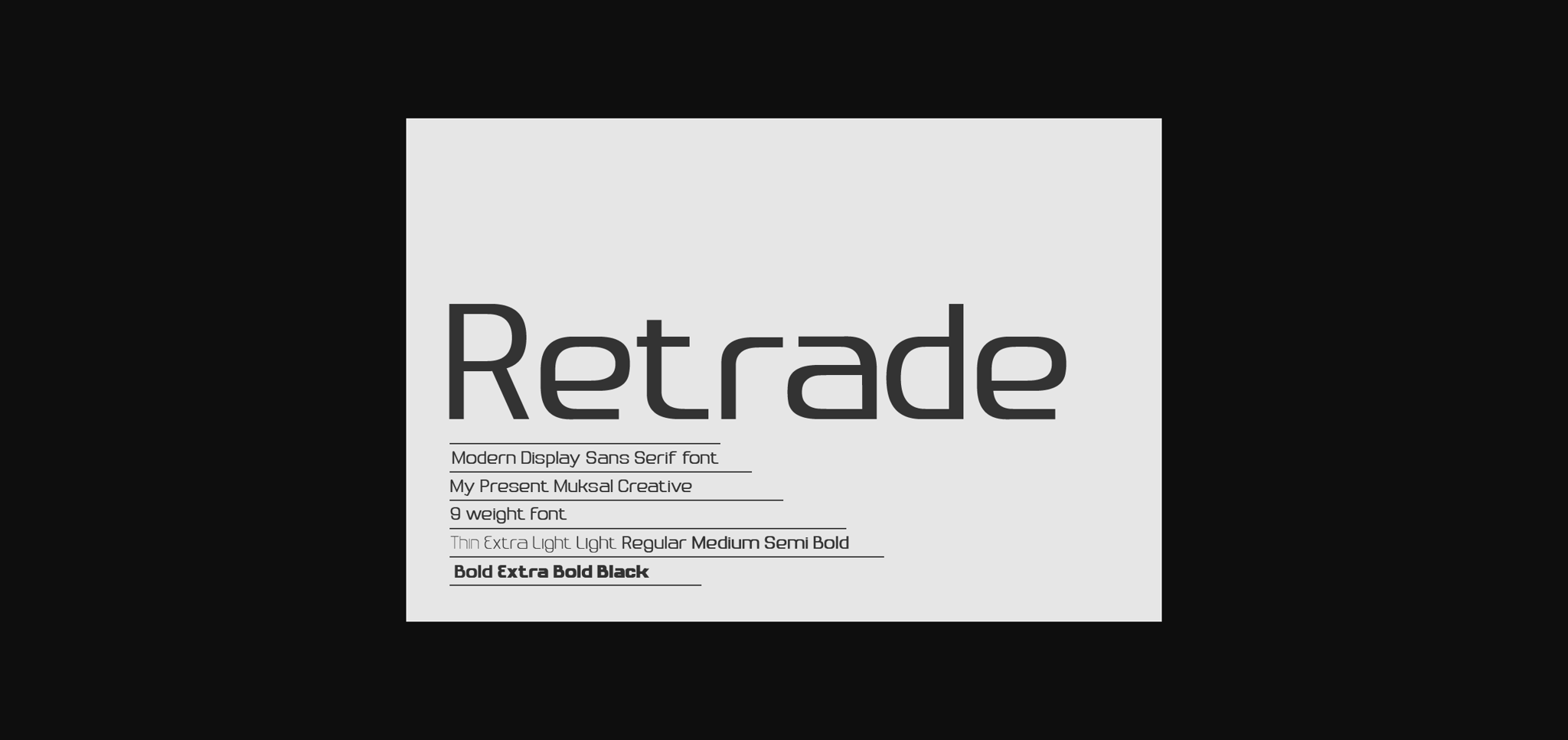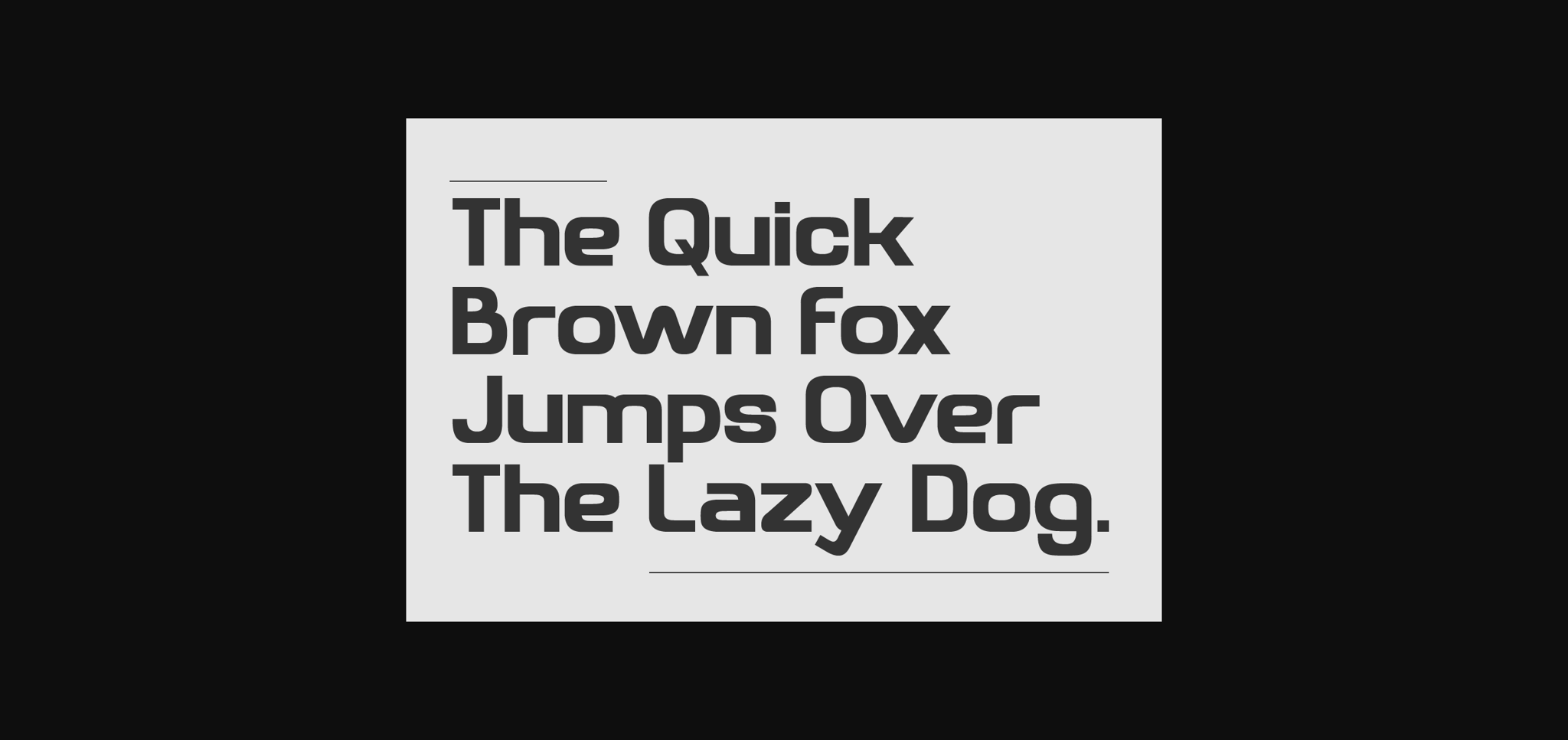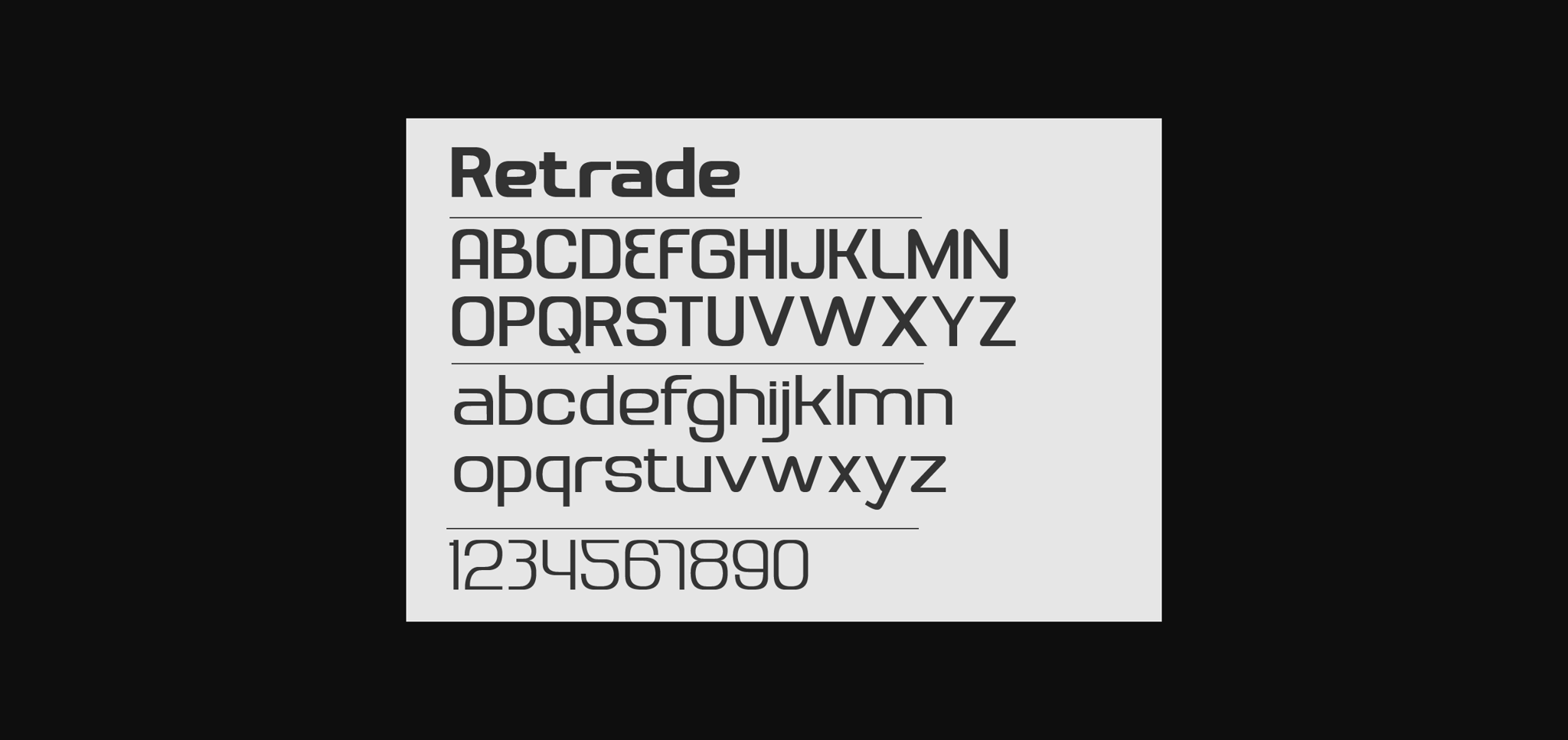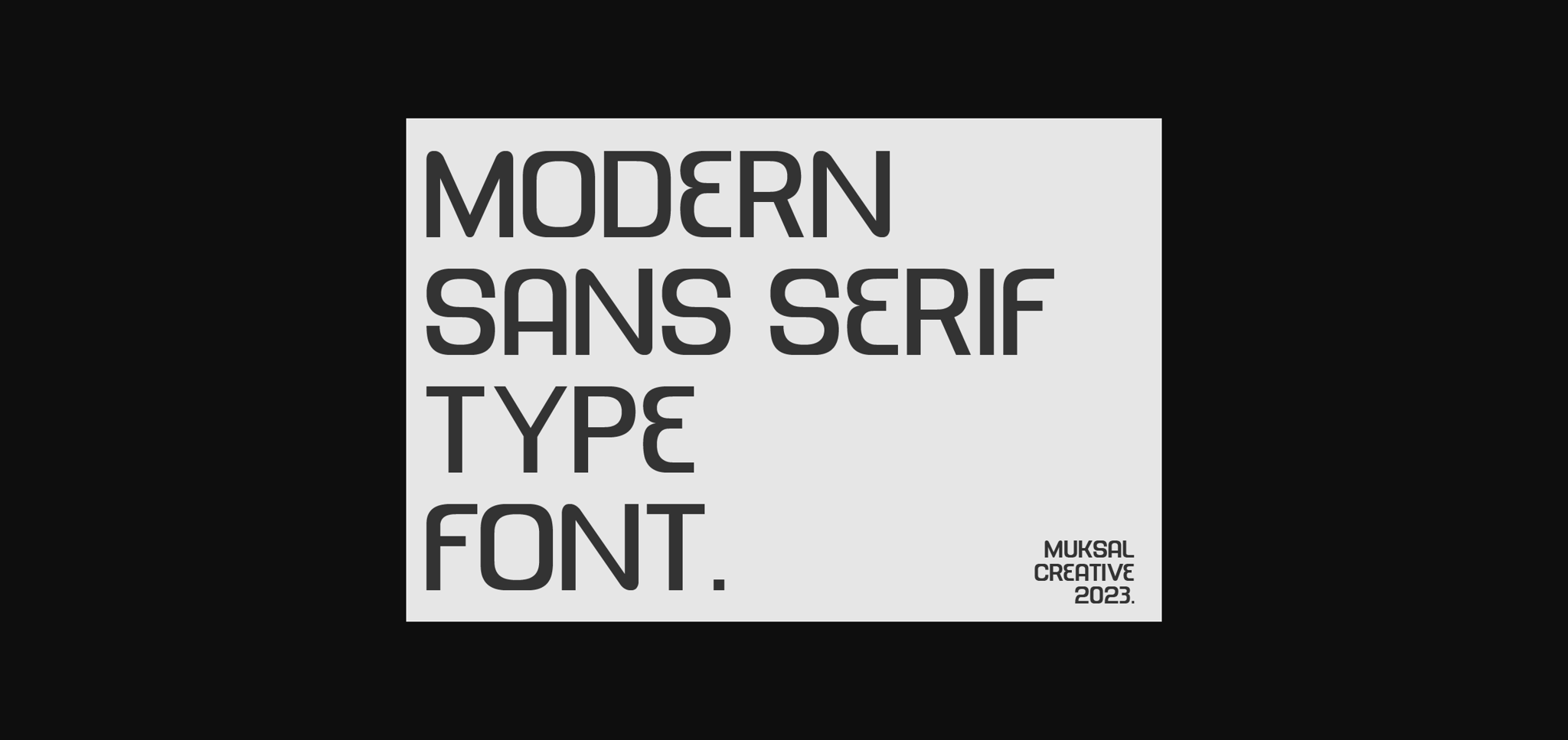
About Retrade Font
Introducing Retrade, a sleek and modern sans-serif font. With clean lines and contemporary aesthetics, Retrade brings a touch of sophistication to your design projects. Ideal for a wide range of applications, from minimalist branding to crisp, professional presentations. Upgrade your typography with Retrade for a fresh and stylish look.